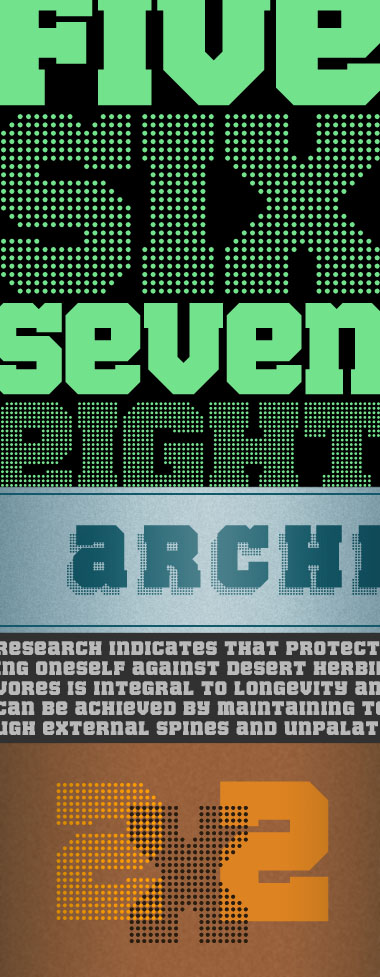
• PERF is a combination of Upper Case and Unicase/Alternates. The “PERF family” also has several decorative variants that can be layered to achieve different effects. This is the BASE font, and there are 8 others. Collect 'em all!
This is the most important of all Perforane versions. The patterned ones are of less significance, since graphic designers can apply any pattern/texture/effect to a font with a mouse click at will. Still, they look very nice and inviting: I would love to take them for a ride in Photoshop. I really like the thin special characters, as they don't draw to much attention away from the letters and numbers. One minor issue to consider: the capital X need serifs. It appears a bit naked amid its heavily serifed siblings. I would use just half serifs, as on the V.
If you are after making a great font family, an outline version would not be completely out of place. 10/10
An excellent bit of work - although I echo Frodo7's thought about the 'X'. 10/10
Fun graphic treatment.
The LC x has serifs.
This pic shows the origins of this font set. I originally just knocked out the letters I needed for this sign/installation for an art exhibit. I figured I should flesh out the rest of the alphabet, and one thing led to another…
What a great series of photos documenting your process. I love the way you have left the perforated sketchbook edges, cut and folded the paper and pinned it over the door. It looks like a lot of fun, no wonder the font family that developed from this is so good!
Just re-posting samples that were attached to an older version of this font ("Perforane") which is no longer public… I changed many of the characters because they didn't work with the all of the variants in the final "PERF" system.
Another re-posted sample…
WOW very strong work !!! the designe is great very nice FAT